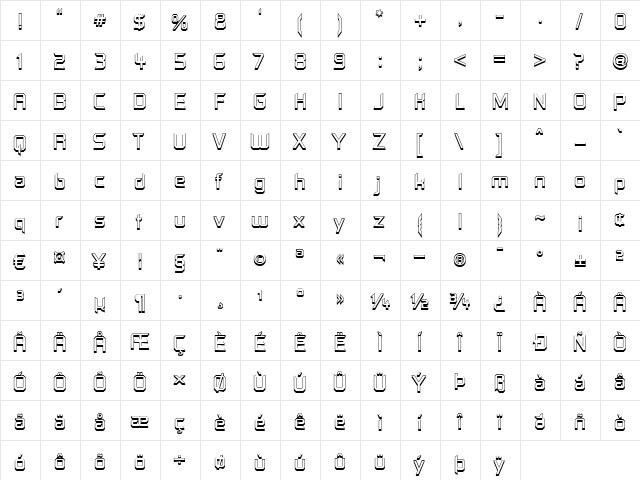
Control Freak Offset Regular
| Designer | Graham Meade |
Design Context for Control Freak Offset Typeface
Control Freak Offset is a composed and adaptable typeface that performs quietly and consistently across a wide range of design contexts.